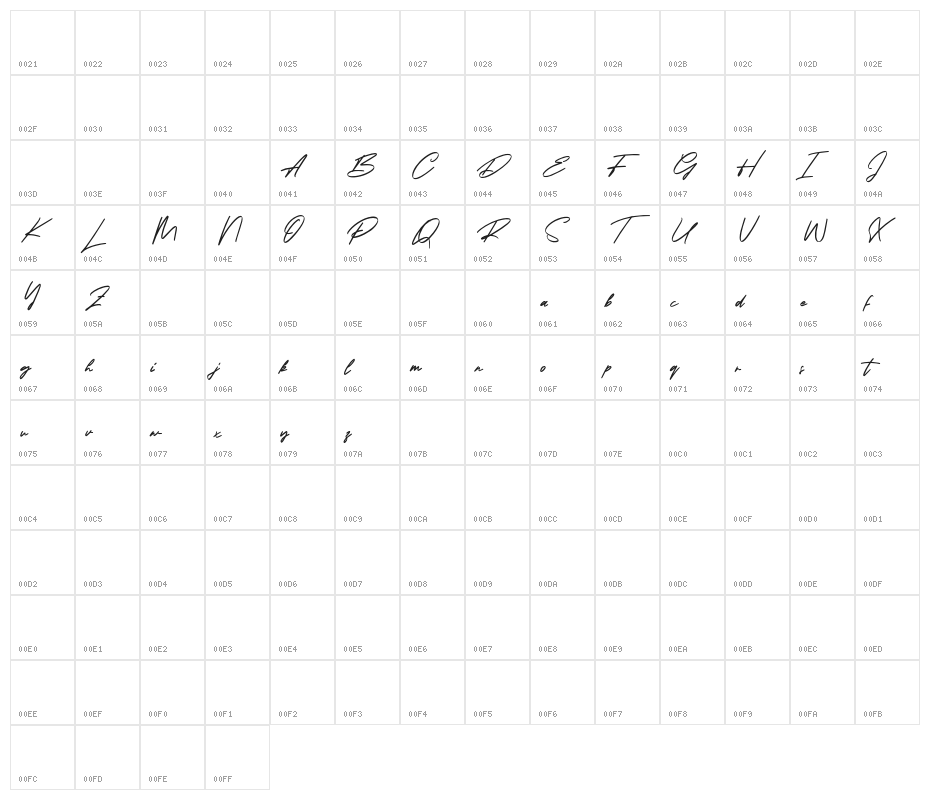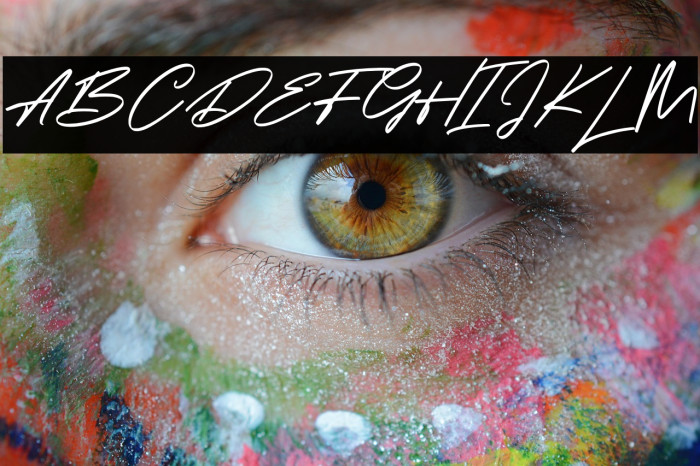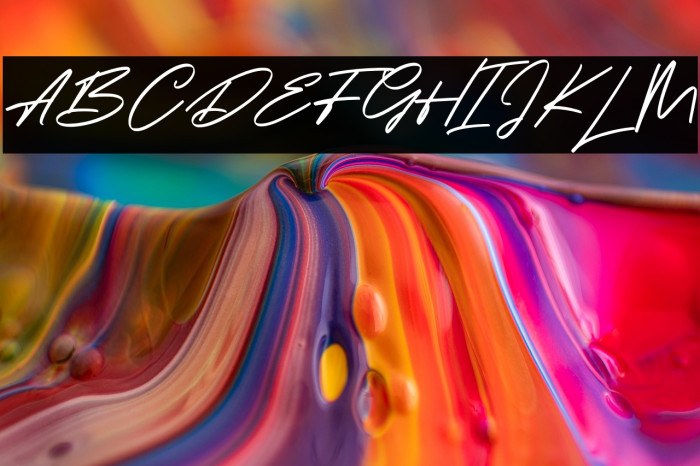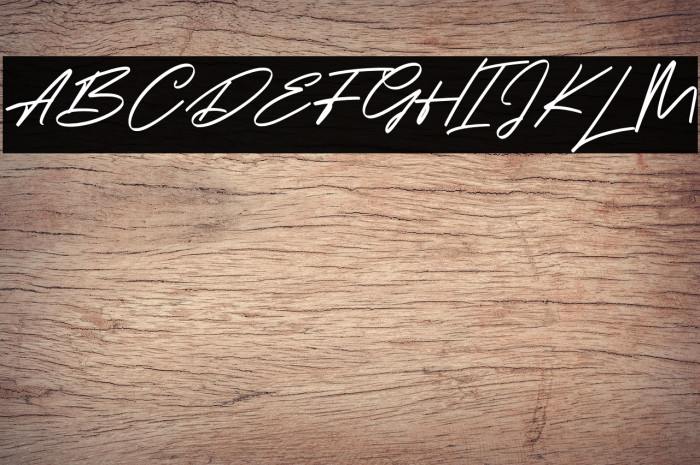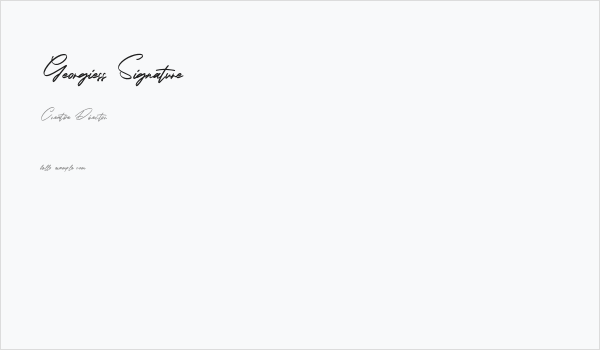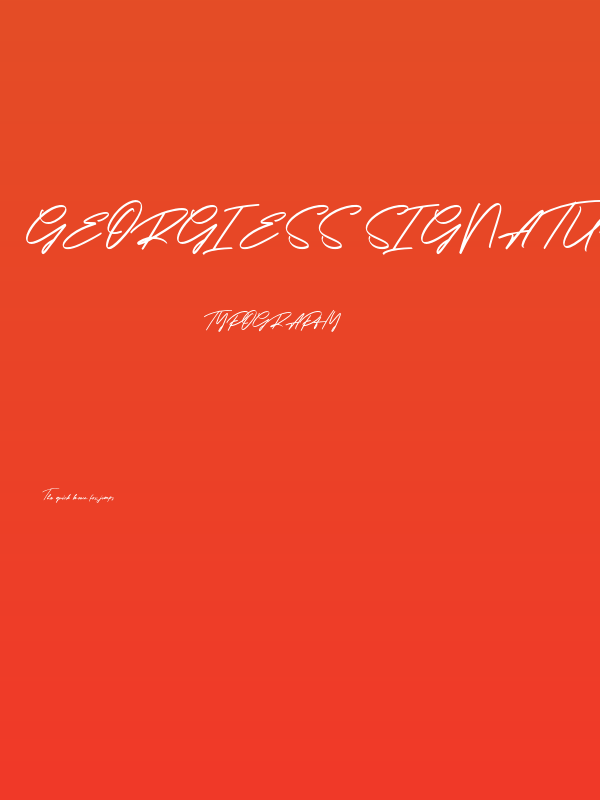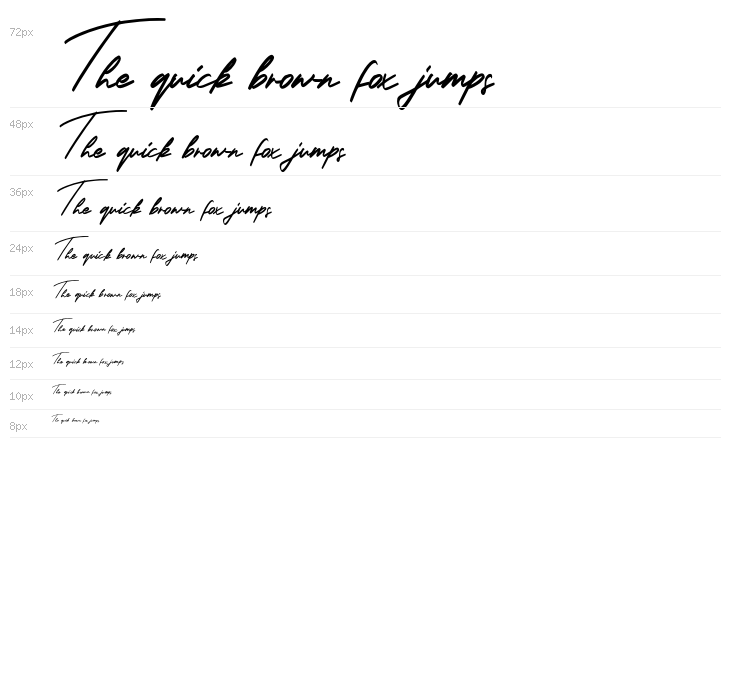
Georgiess Signature Font
Georgiess Signature Description
This font exudes a personal and elegant touch, reminiscent of a handwritten signature. The letters are fluid and connected, with a natural flow that mimics cursive handwriting. The strokes vary in thickness, adding a dynamic and lively feel to the text. The uppercase letters are bold and prominent, while the lowercase letters maintain a consistent and smooth appearance. This style is perfect for adding a personal and sophisticated touch to any project, making it ideal for invitations, branding, and personal correspondence.
Overall StyleElegant
Use CaseLogos, Invitations, Personal Correspondence
Proposed ProjectsIdeal for wedding invitations, personal branding, logos, and elegant stationery.